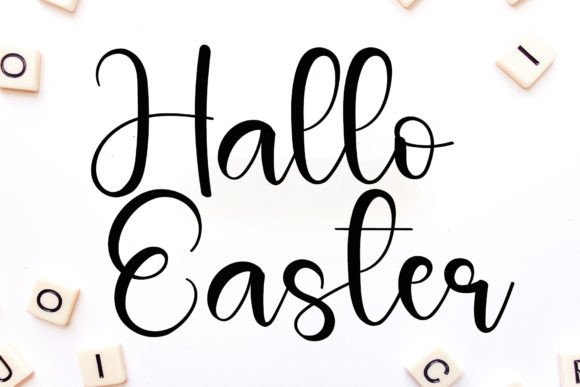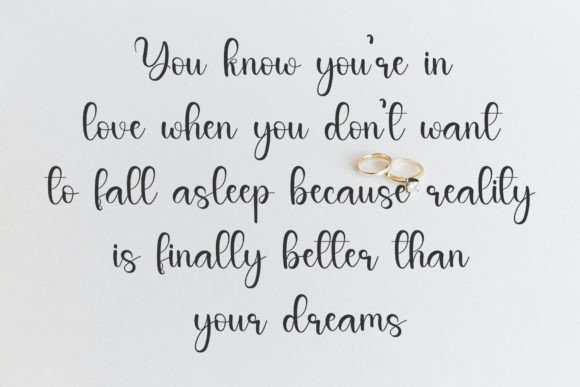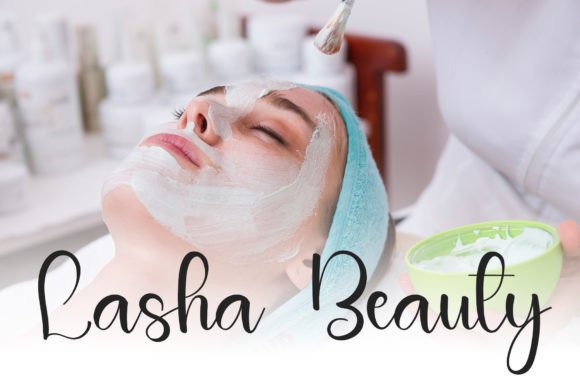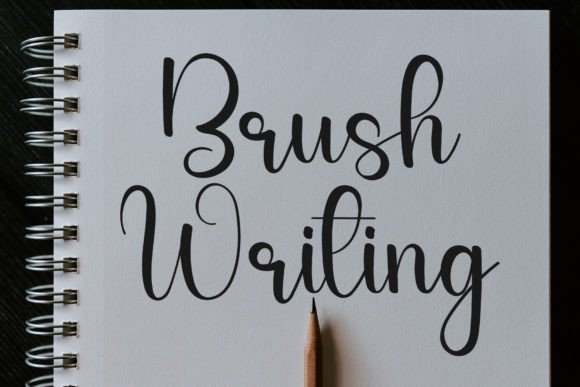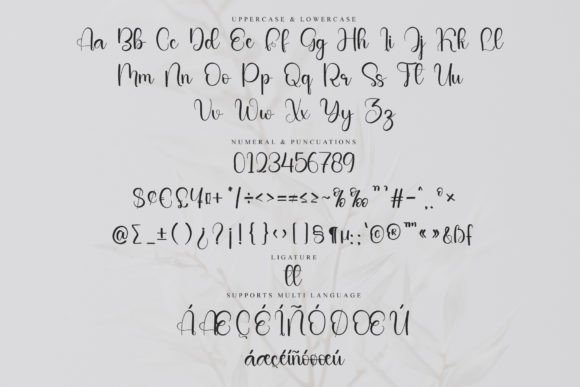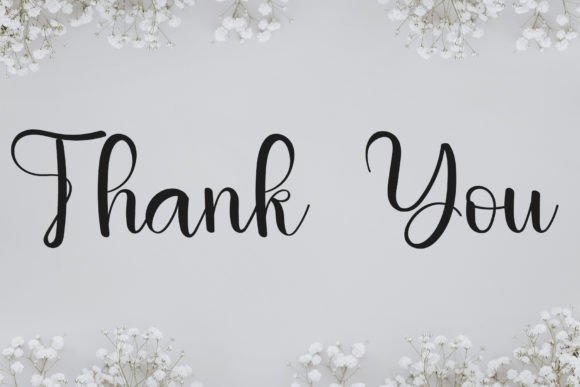
Introducing Birthday Font: The Elegant and Timeless Choice for Your Designs
Are you looking for a font that can add a touch of elegance and sophistication to your designs? Look no further than Birthday Font! This beautiful, flowing handwritten font is described by its elegant touch, making it perfect for your favorite projects. With its incredibly distinct and timeless style, Birthday Font is sure to fall in love with your designs and help you create spectacular results.
The Characteristics of Birthday Font
So, what makes Birthday Font so special? Here are just a few of its key characteristics:
- Flowing Handwritten Style: Birthday Font has a beautiful, flowing handwritten style that is perfect for creating elegant and sophisticated designs.
- Elegant Touch: The font has an elegant touch that makes it perfect for a wide range of projects, from wedding invitations to branding and packaging.
- Distinct and Timeless Style: Birthday Font has an incredibly distinct and timeless style that will make your designs stand out from the crowd.
Why Choose Birthday Font?
There are many reasons why you might choose Birthday Font for your designs. Here are just a few:
- Versatility: Birthday Font is incredibly versatile, making it perfect for a wide range of projects, from digital designs to print materials.
- Unique Style: Birthday Font has a unique style that will help your designs stand out from the crowd.
How to Use Birthday Font in Your Designs
Using Birthday Font in your designs is easy! Here are a few tips to get you started:
- Pair it with Other Fonts: Birthday Font looks great when paired with other fonts, such as sans serif fonts or script fonts.
- Use it for Headings and Titles: The font is perfect for headings and titles, where its elegant and sophisticated style can really shine.
- Experiment with Different Colors: Birthday Font looks great in a wide range of colors, from bold and bright to soft and pastel.
Birthday Font in the World of Design
Birthday Font is more than just a font – it’s a design tool that can help you create beautiful and sophisticated designs. Here are a few ways that the font can be used in the world of design:
- Wedding Invitations: Birthday Font is perfect for wedding invitations, where its elegant and sophisticated style can help set the tone for the big day.
- Branding and Packaging: The font is also great for branding and packaging, where its unique style can help your brand stand out from the crowd.
- Digital Designs: Birthday Font can be used in a wide range of digital designs, from social media graphics to website headers.
In conclusion, Birthday Font is a beautiful and elegant font that is perfect for designers and crafters who want to add a touch of sophistication to their designs. With its flowing handwritten style, elegant touch, and distinct and timeless style, Birthday Font is sure to fall in love with your designs and help you create spectacular results. So why not give it a try and see the difference it can make?